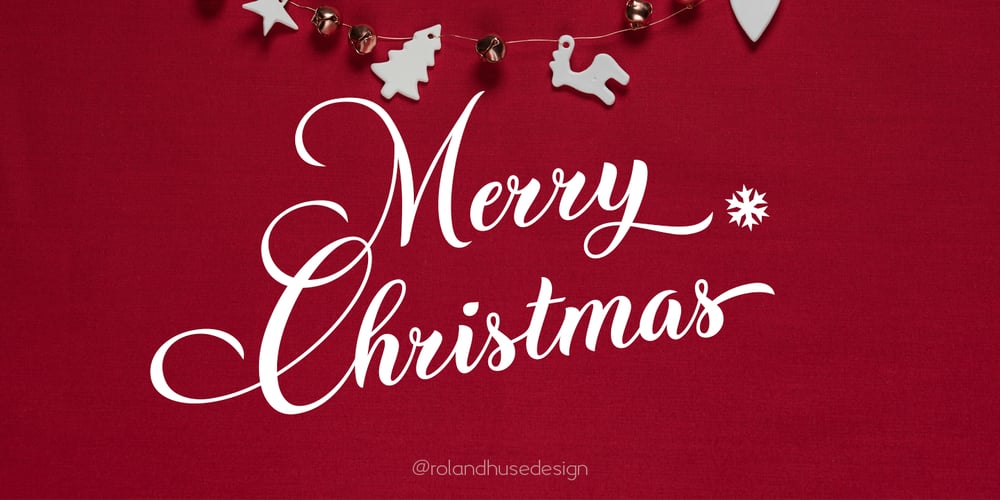
Christmas Wish Font Family was designed by Roland Hüse and published by Roland Hüse Design. Christmas Wish contains 2 styles and family package options. Christmas Wish is a cursive brush calligraphy style script that comes in two weights: a thin Monoline and a brush Calligraphic version. Contains Western, Eastern and Central European accented characters. There are 2 stylistic sets of lowercase letters b d h k l r s t and z. Also 2 sets for hypen and underscore for some flourishes in front, after and under some shorter words. You can view a more detailed, OpenType guide pdf here. For additional customizations extra ligatures (for logotypes for example) please email me at contact@rolandhuse.com Thank you I hope you like this font. Merry Christmas! Roland Instagram: @rolandhusedesign